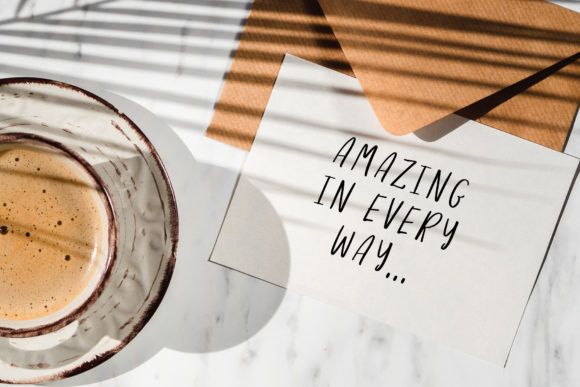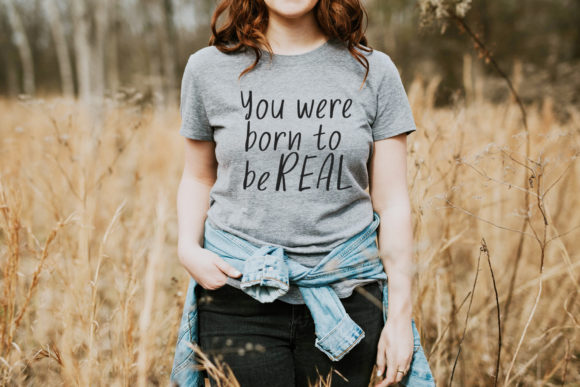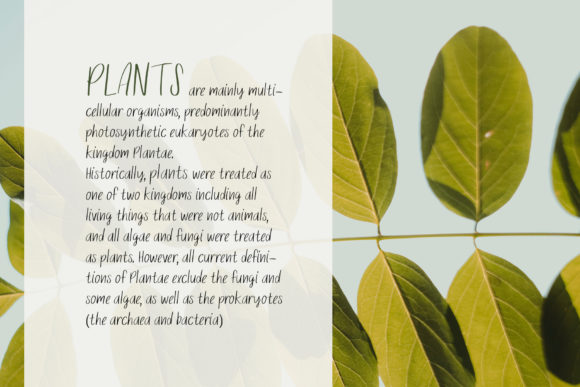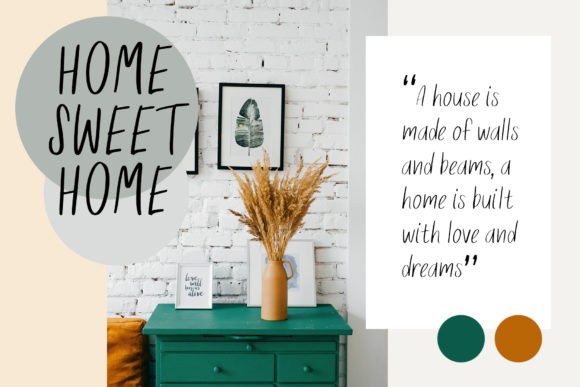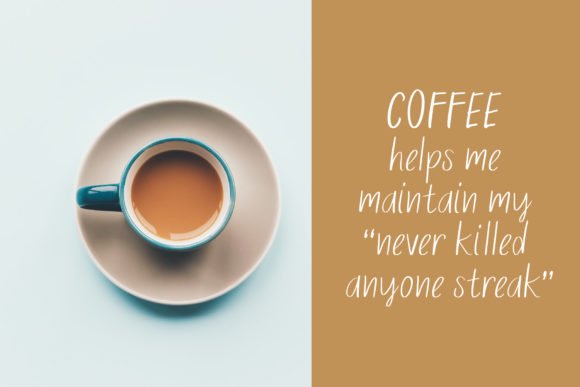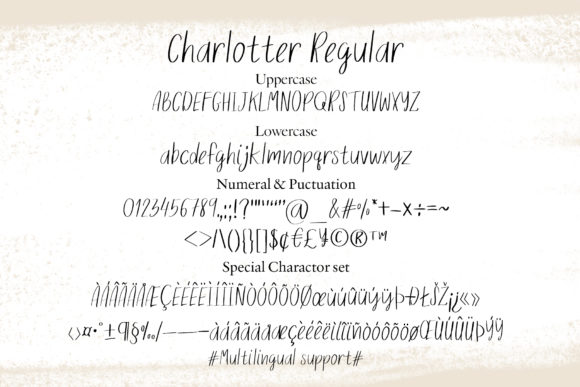
Unleash Your Creativity with the Charlotter Font
Have you ever stared at a blank canvas, trying to come up with the perfect font to bring your design to life? That’s exactly where I found myself last week, and I’m sure I’m not alone. The pressure to create something unique and captivating can be overwhelming, but sometimes all it takes is the right tool to spark our imagination.
Enter the Charlotter Font, a simple yet charming handwritten font designed to add a touch of personality to any design. Whether you’re working on a logo, a social media post, or a marketing campaign, this versatile font is sure to make your project stand out. With its natural and unique style, the Charlotter Font is a valuable addition to any designer’s toolkit.
So why is the Charlotter Font so valuable for designers? For one, its friendly and approachable style makes it incredibly fitting to a wide range of designs. Plus, its simplicity ensures that it won’t overpower your message or distract from your creative vision. With the Charlotter Font, the only limit is your imagination!
Charlotter Font Key Features
- Font Family: Charlotter Font is a modern, elegant script font.
- Unique Characteristics: Features a unique blend of elegance and sophistication, making it perfect for wedding invitations, greeting cards, and other special occasions.
Charlotter Font Review
I recently had the chance to work with the Charlotter Font, and I must say it’s an interesting addition to the world of typography. ✨ One of the things I like about this font is its versatility. It comes in a range of weights, from light to bold, making it suitable for a variety of design projects. The font also has a unique, elegant feel to it, which I think would be perfect for branding and marketing materials.
However, I did encounter some limitations while working with the Charlotter Font. ⚠️ The font’s legibility can be an issue at smaller font sizes, making it difficult to read. Additionally, the font’s design is quite ornate, which may not be suitable for projects that require a more minimalist approach.
- Wide range of weights (light to bold)
- Unique, elegant feel
- Perfect for branding and marketing materials
- Legibility issues at smaller font sizes
- Ornate design may not be suitable for minimalist projects
Overall, I think the Charlotter Font has a lot of potential, but it’s not without its limitations. If you’re looking for a unique, elegant font for your design projects, Charlotter might be a good choice. However, if you need a font that’s highly legible at small sizes or has a more minimalist design, you may want to consider other options.
The Charlotter font is ideal for:
- Creatives looking for a unique, elegant font.
- Designers who want to add a touch of sophistication to their work.
- Business owners who want to establish a professional brand image.
For best results, use the Charlotter font in headings and titles to add a touch of elegance and sophistication to your designs.